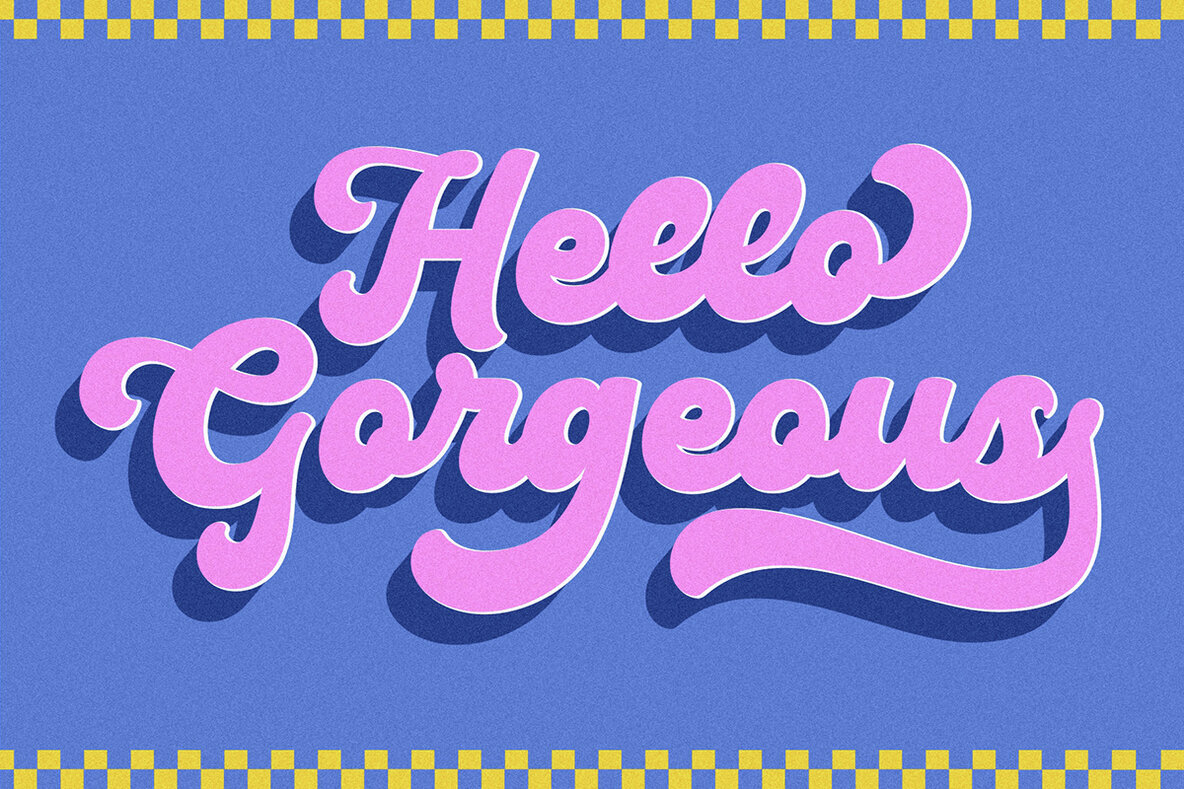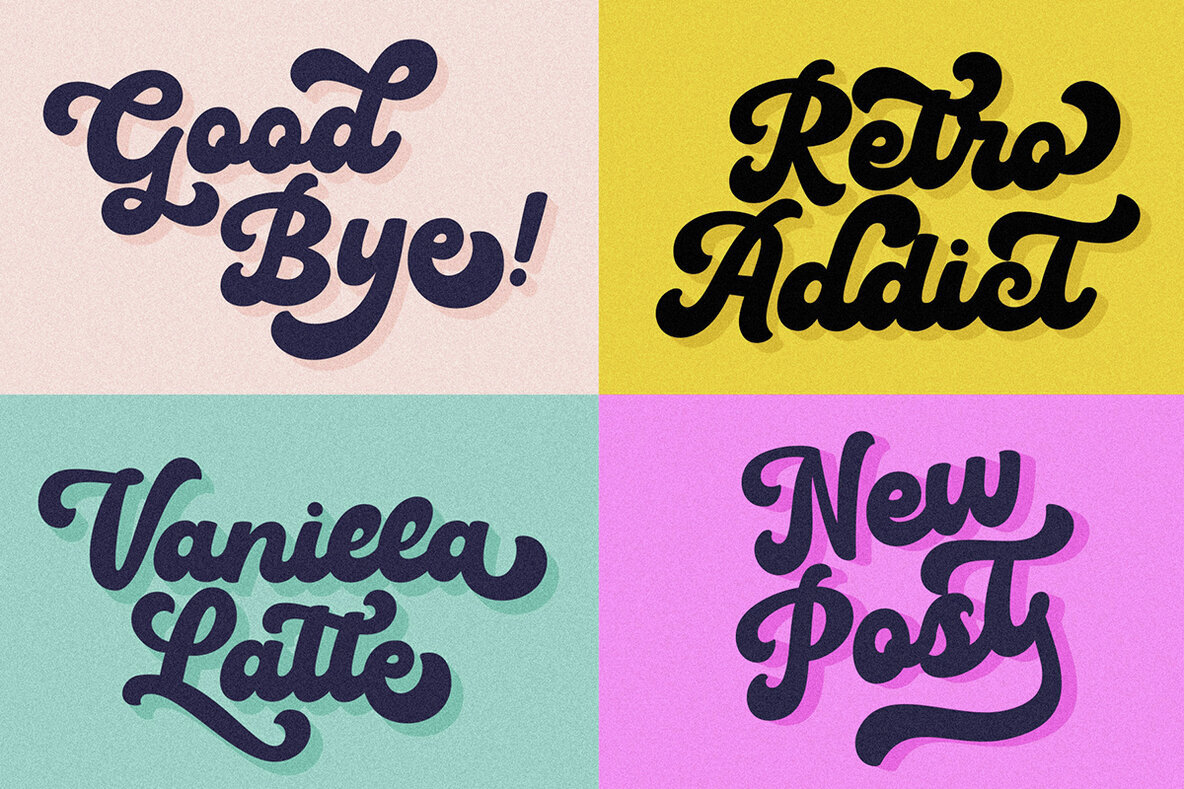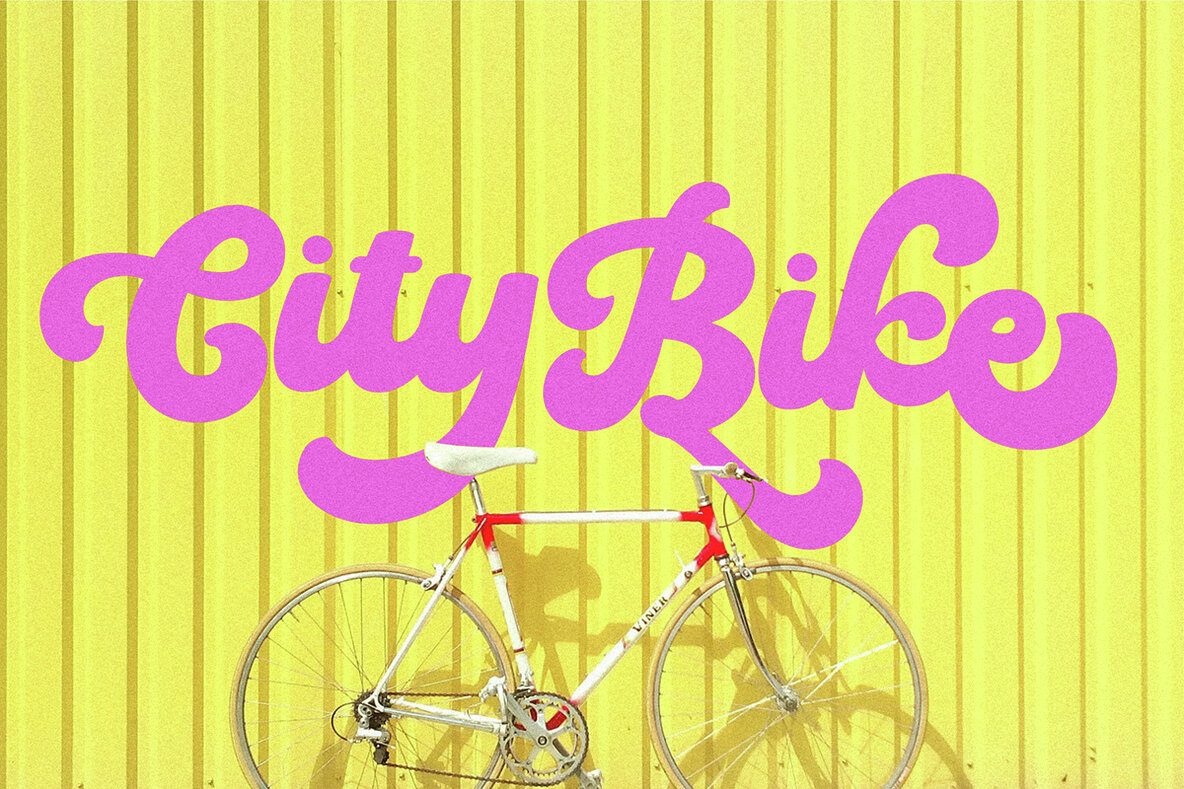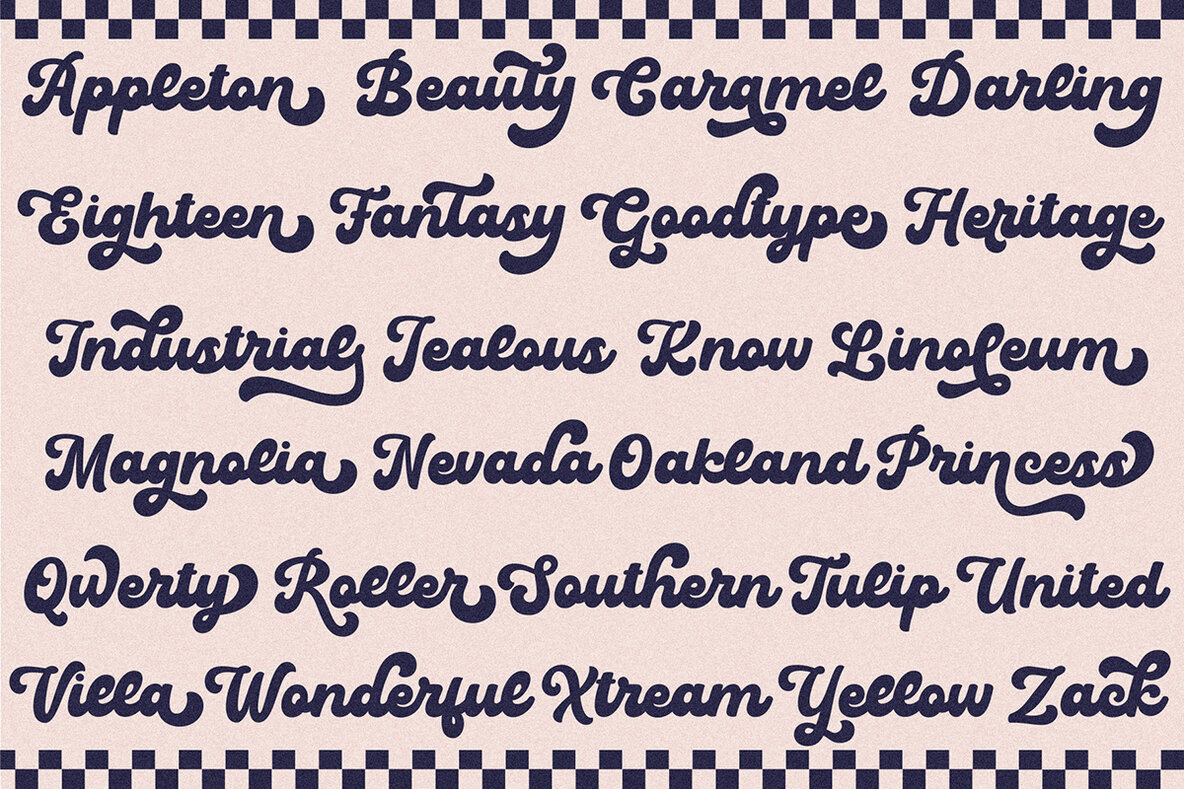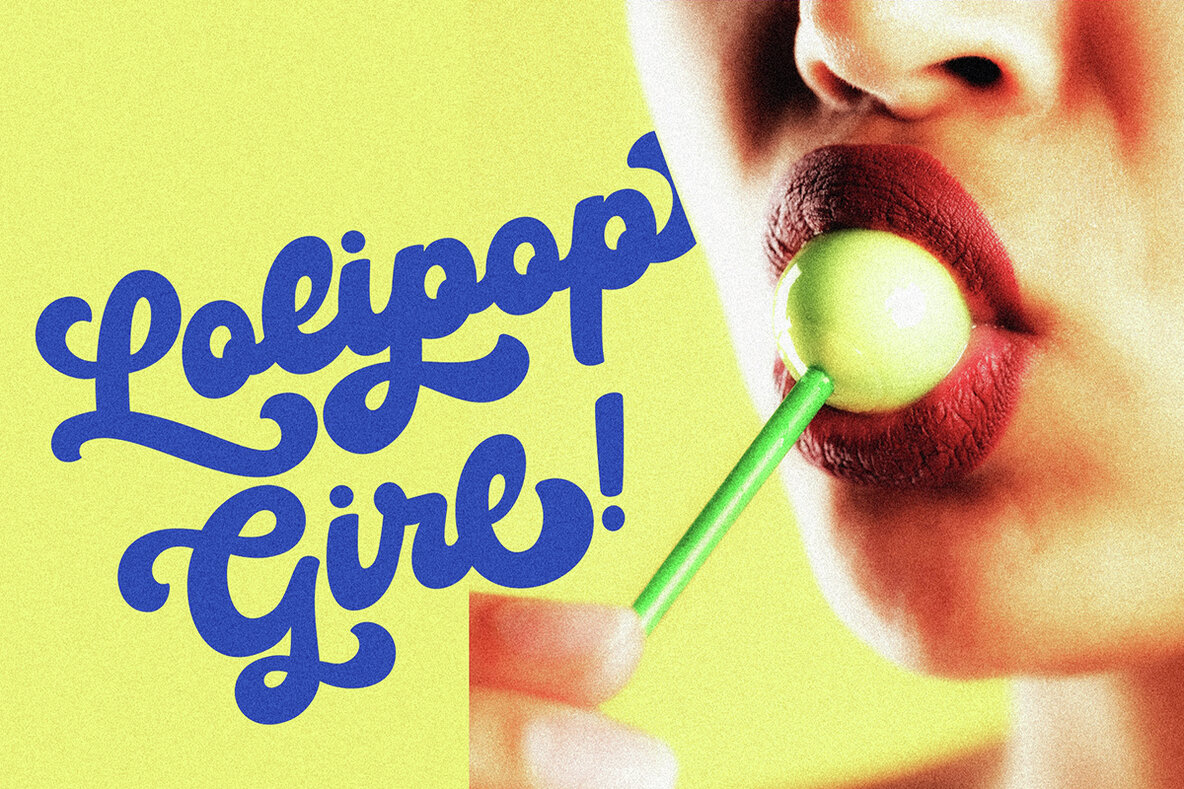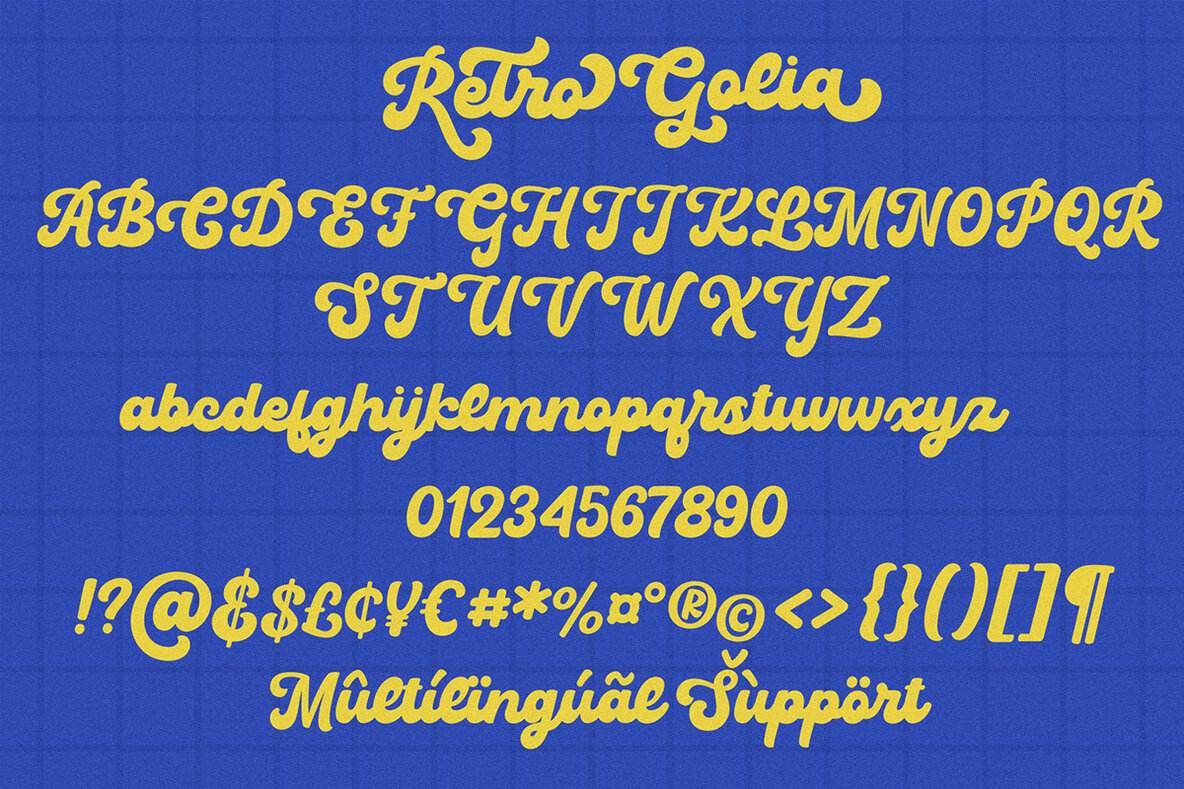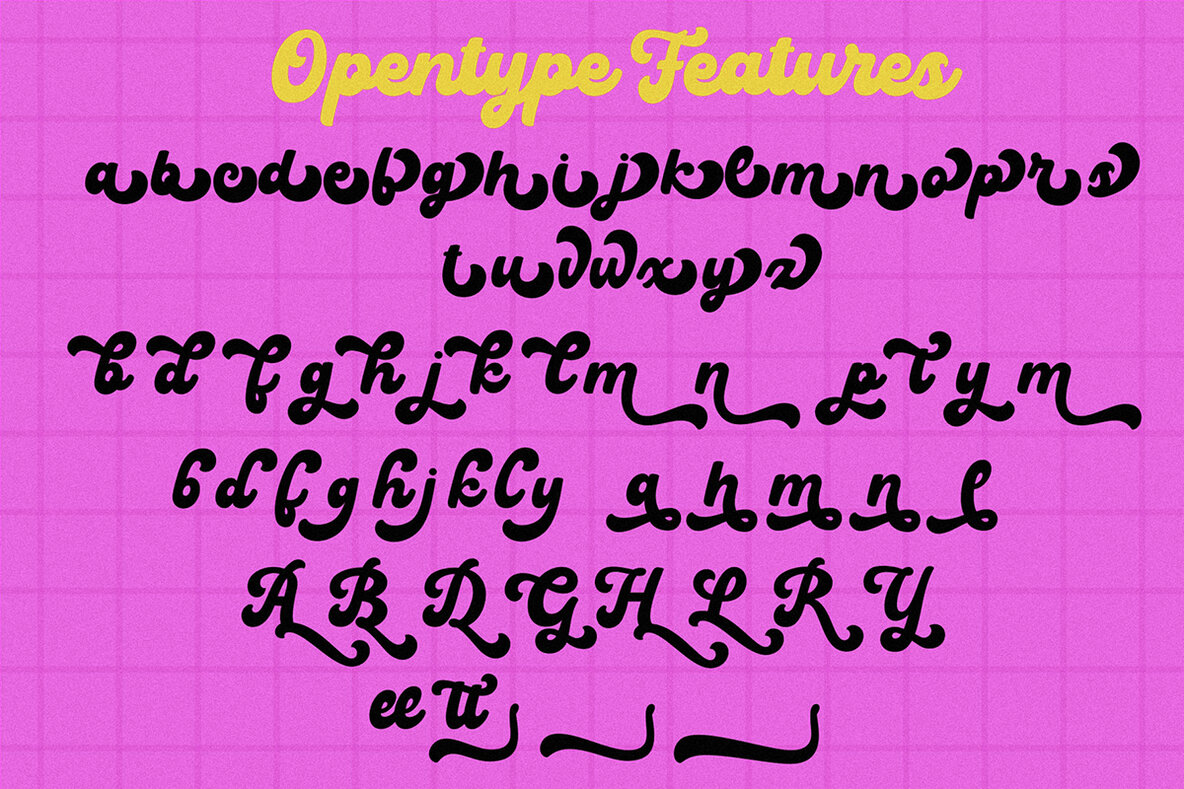
Retro Golia Font
Retro Golia is a bold retro script font inspired by classic typography designs. Ideal for various creative projects, this font is perfect for branding, wedding invitations, photography, logos, lettering, greeting cards, quotes, posters, and more. This bold and playful script font features a decorative, handwritten style with flowing, stylized characters. Perfect for retro and vintage-themed designs, it's ideal for headlines, logos, branding, and posters that need to be eye-catching and attention-grabbing. Its unique curvy form adds a quirky and fun touch to any project.